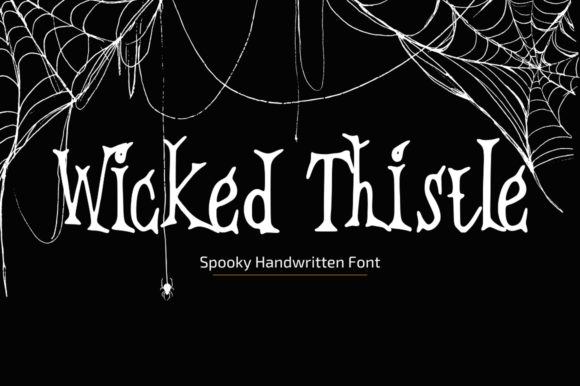
Wicked Thistle Font: A Unique Typographic Choice for Spooky and Mystical Designs
In the world of typography, fonts serve as more than just tools for readability—they are visual storytellers. One such font that stands out with its distinctive character is Wicked Thistle Font. Designed to evoke an unsettling yet enchanting vibe, it’s a tall, eerie spooky font with hand-drawn irregularities that make it perfect for Halloween invitations, horror-themed merchandise, dark fairytales, or any design needing a touch of mysticism. Whether you're crafting content for a brand, event, or personal project, Wicked Thistle offers a unique aesthetic that can help your message stand out in the right way.
The Visual Identity of Wicked Thistle Font
Wicked Thistle is not your typical sans-serif or serif font. It breaks the mold with jagged strokes and haunting curves that give it a raw, organic feel. These features are carefully balanced to maintain legibility—something many decorative fonts fail to achieve. The irregularities in each letter mimic the imperfections of human handwriting, making the font feel alive and unpredictable.
This makes it particularly useful for designers who want to create a sense of mystery or tension without sacrificing clarity. Its height and bold presence also allow it to work well in large formats, like headlines or signage, where impact is essential.
Who Can Benefit from Using Wicked Thistle Font?
Practical Applications and Use Cases
One of the most common uses for Wicked Thistle Font is in Halloween-related designs. From invitations to promotional banners, this font brings a sense of unease and enchantment that traditional fonts cannot replicate. For example, if you’re hosting a costume party or launching a new horror novel, using Wicked Thistle for the title can immediately set the tone and draw interest.
Another scenario where this font shines is in the creation of book covers or chapter headings for dark fantasy novels. The irregularities in the letters suggest a handmade quality, which aligns well with the themes of old-world magic, curses, and forbidden knowledge. Readers may find themselves drawn into the story simply by how the title appears on the page.
Freelancers and small business owners in the creative sector often look for ways to differentiate their work. By incorporating Wicked Thistle into logos, packaging, or branding materials, they can establish a unique visual identity that resonates with niche audiences. This kind of specificity helps build trust and familiarity among customers who appreciate the aesthetic.
How to Integrate Wicked Thistle Font Effectively
When using Wicked Thistle, it's important to consider contrast and background. Because of its bold, irregular nature, pairing it with a clean, minimalist layout can help maintain focus and prevent visual clutter. For instance, placing the font over a deep black or forest green background can amplify its mysterious qualities while keeping the overall design cohesive.
Here are some practical tips for integrating Wicked Thistle into your projects:
1. Use Sparingly: Due to its strong visual presence, avoid using it in body text. Reserve it for headers, titles, or accents where it can make the biggest impact.
2. Pair Thoughtfully: Combine it with a neutral sans-serif font like Helvetica or Arial for body copy to ensure readability and balance.
3. Experiment with Color: While black is a classic choice, try muted reds, purples, or even silver for a different effect, especially in digital formats.
4. Test Readability: Always check how the font looks at various sizes. Though it's designed to be readable, smaller sizes might lose clarity depending on the context.
Improving Communication Through Typography
Fonts do more than convey words—they influence emotions and expectations. Wicked Thistle Font does this exceptionally well by creating an immediate association with the unknown or the uncanny. In marketing, this can be a strategic advantage. For example, a product launch for a new line of herbal remedies marketed under a mystical brand name could benefit greatly from the font's gothic appeal.
Consider a blogger specializing in ghost stories or urban legends. Adding a heading in Wicked Thistle can instantly signal the genre and create a stronger connection with the reader. This subtle but effective cue enhances user experience by setting the right tone before the first word is read.
Time-Saving Design Solutions
Designers often spend hours searching for the perfect font to match their vision. With Wicked Thistle, the search can be simplified. Its versatility across mediums—from print to web—means it can be used in multiple stages of a project. You can apply it to both initial mockups and final deliverables without worrying about losing its essence.